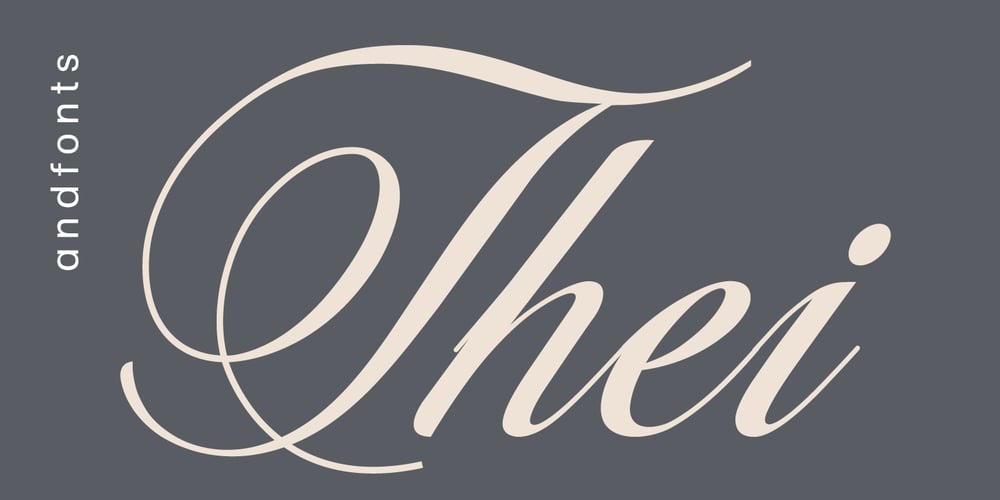
Thei
Thei font
Thei Font Family was designed by Andrii Shevchyk and published by Andfonts. Thei contains 1 styles and family package options. Thei is a calligraphy font that helps designers to create beautiful compositions. It looks stunning on wedding invitations, cards, quotes, greeting cards, logos, business cards and every other design which needs a customized touch.How quickly to create decor elements: Type ++ or +++ (currently does not work on Myfonts.com test preview) Or type any Text========== Then move decor elements in the right position. ***Don’t change the size of text during this process, because it may not create decor elements (ligatures).(currently does not work on Myfonts.com test preview)Or choose the décor element in Glyphs category.